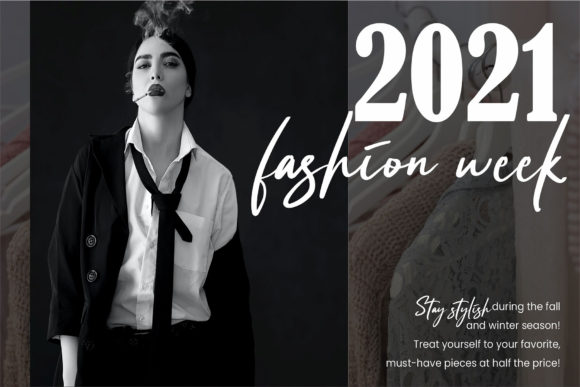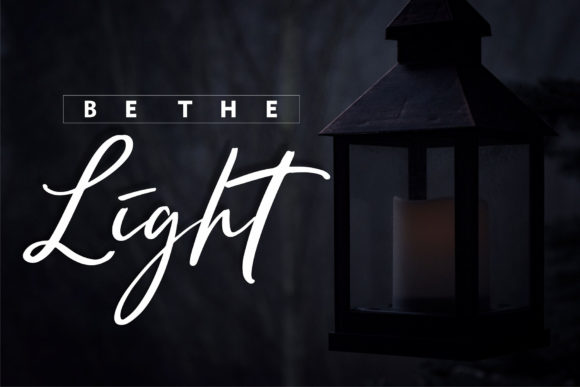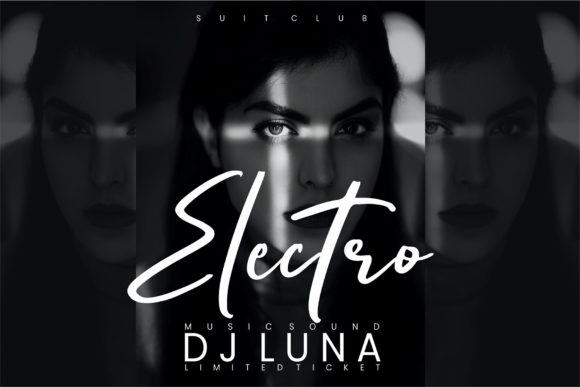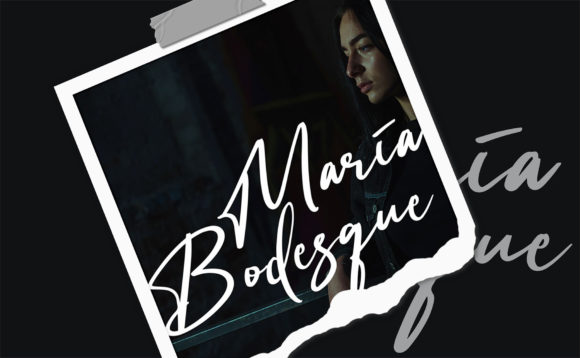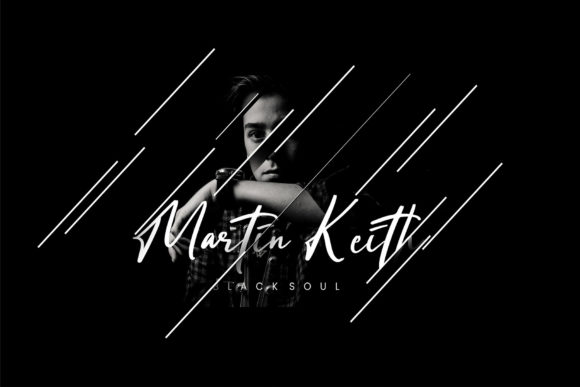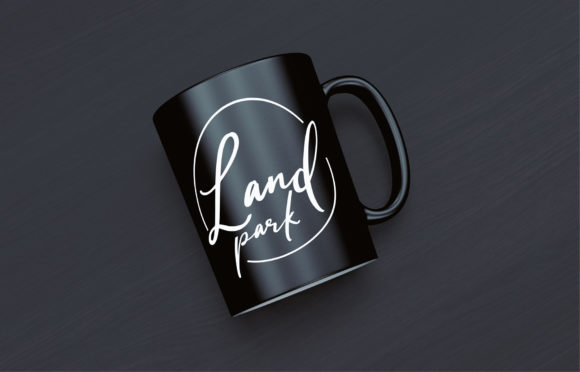
Introducing Destind Font: The Perfect Addition to Your Design Arsenal
Are you a designer or crafter looking for a modern and versatile font to elevate your creative projects? Look no further than Destind Font! This beautiful, handwritten font is designed to be simple and easy to use, making it the perfect addition to your design arsenal. In this article, we’ll dive into the features and benefits of Destind Font, and explore how you can use it to take your craft designs to the next level.
What is Destind Font?
Destind Font is a modern handwritten font that exudes elegance and sophistication. With its clean lines and simple design, this font is perfect for a wide range of creative projects, from crafting and scrapbooking to graphic design and digital art. Whether you’re looking to add a personal touch to your designs or create a cohesive brand identity, Destind Font is the perfect choice.
Key Features of Destind Font
- Modern and Handwritten: Destind Font features a modern, handwritten design that’s perfect for creating unique and eye-catching designs.
- Simple and Easy to Use: This font is designed to be easy to use, even for those with limited design experience.
- Versatile: Destind Font can be used for a wide range of creative projects, from crafting and scrapbooking to graphic design and digital art.
- Beautiful on its Own or Paired with Other Fonts: Destind Font is stunning on its own, but it also pairs beautifully with other fonts to create a unique and cohesive design.
Benefits of Using Destind Font
So why should you choose Destind Font for your design projects? Here are just a few benefits of using this amazing font:
- Adds a Personal Touch: Destind Font adds a personal touch to your designs, making them stand out from the crowd.
- Easy to Read: This font is easy to read, even in small sizes, making it perfect for creating designs that need to be legible.
- Customizable: Destind Font can be customized to fit your design needs, from changing the color and size to adding effects and textures.
- Time-Saving: With Destind Font, you can create beautiful designs in no time, saving you time and effort.
How to Use Destind Font in Your Designs
Now that you know more about Destind Font, let’s explore how you can use it in your designs. Here are a few ideas to get you started:
- Crafting and Scrapbooking: Use Destind Font to add a personal touch to your scrapbook pages, photo albums, and other craft projects.
- Graphic Design: Destind Font is perfect for creating logos, brochures, and other graphic design projects that require a modern and elegant touch.
- Digital Art: Add Destind Font to your digital art projects, such as illustrations and paintings, to create a unique and eye-catching design.
- Mix and Match: Experiment with pairing Destind Font with other fonts and design elements to create a unique and cohesive design.
Tips and Tricks for Getting the Most Out of Destind Font
Here are a few tips and tricks for getting the most out of Destind Font:
- Use it with Other Design Elements: Pair Destind Font with other design elements, such as images and textures, to create a unique and eye-catching design.
- Make it Your Own: Customize Destind Font to fit your design needs, from changing the style and layout to adding effects and textures.
In conclusion, Destind Font is a beautiful and versatile font that’s perfect for designers and crafters looking to add a modern and elegant touch to their creative projects. With its simple and easy-to-use design, Destind Font is a great addition to any design arsenal. Whether you’re creating craft designs, graphic design projects, or digital art, Destind Font is sure to impress. So why wait? Download Destind Font today and start creating stunning designs that will leave a lasting impression!